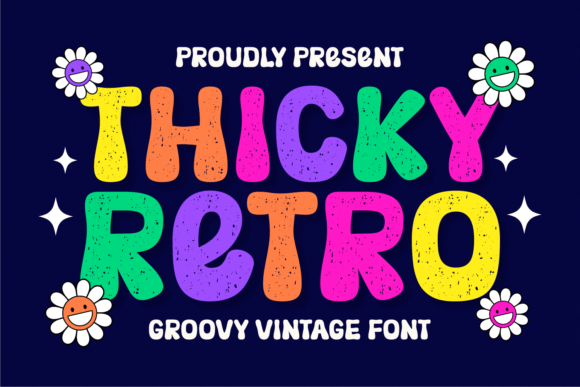
Prepare to embark on a unique typographic journey with Thicky Retro, a display font family that oozes charm and nostalgia! Dive into a realm of the grandiose, as this font captivates your imagination with its sweeping curves and bold strokes. Picture this: your designs transformed into captivating works of art, your words dancing on the screen with a vintage flair.
With Thicky Retro, you can effortlessly weave tales that transport readers to a time of vibrant mystique. Create eye-catching Wattpad covers that evoke a sense of wonder and intrigue. Design posters that harken back to the golden age of cinema, posters that command attention and ignite imaginations. Let your creativity soar as you craft logos and branding materials that exude a touch of retro elegance.
Unleash your inner storyteller with Thicky Retro, a font that breathes life into your words. Immerse yourself in a world of endless possibilities, where imagination and nostalgia collide. Prepare to be captivated by the Thicky Retro experience!